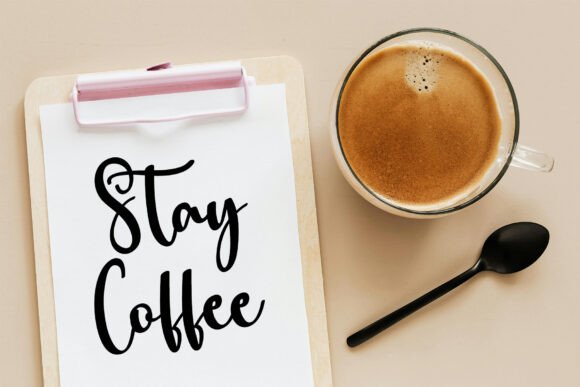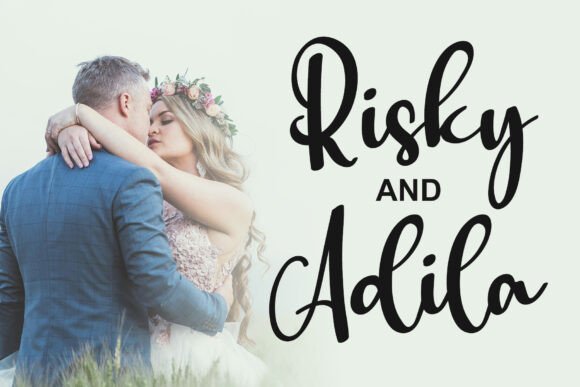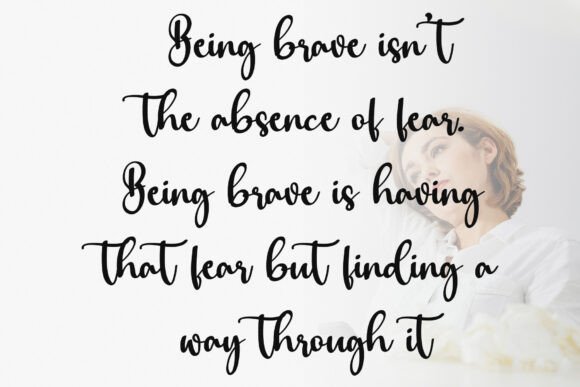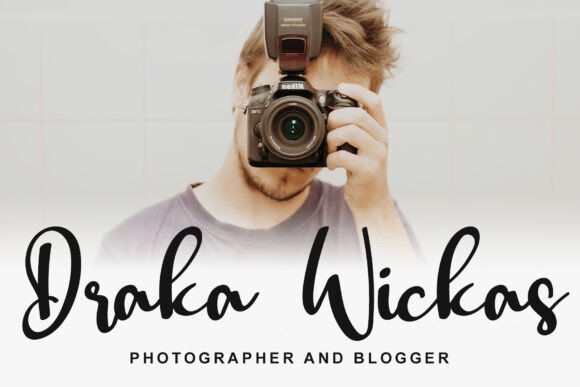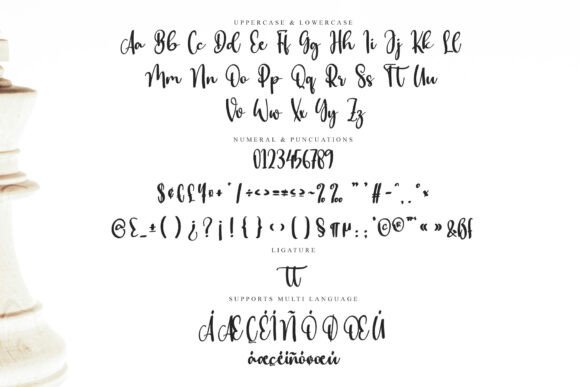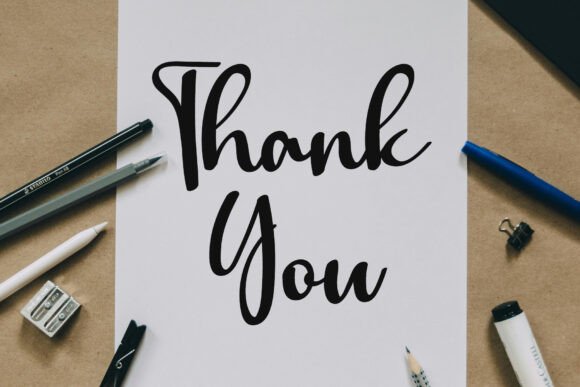
Introduction to Simple Heart Font
As designers, we’ve all been there – staring at a blank canvas, trying to bring our creative vision to life. The perfect font can be the missing piece that takes our design from bland to grand. And that’s exactly where the Simple Heart Font comes in – a delicate, elegant handwritten typeface that’s perfect for a wide range of design needs.
Whether you’re working on a high-end branding project or a social media post, the Simple Heart Font is a valuable addition to your design resource arsenal. Its PUA encoding means that you can easily access all the glyphs and alternates, giving you the flexibility to create something truly unique and eye-catching.
Key Features of Simple Heart Font
- Unique, cursive design with a simple heart shape, perfect for creative projects
Honest Review: Simple Heart Font
As a designer, I’m always on the lookout for high-quality design resources that can elevate my creative projects. Recently, I stumbled upon the Simple Heart Font, and I’m excited to share my honest review with you.
What works well: ✨ The Simple Heart Font is incredibly versatile, making it perfect for a wide range of design projects. Its elegant and modern design is sure to add a touch of sophistication to any layout. The font also features a transparent background, which makes it easy to overlay on top of other design elements.
- High-quality design: The Simple Heart Font is well-crafted and exhibits excellent clarity, making it perfect for both print and digital projects.
Limitations: ⚠️ One potential limitation of the Simple Heart Font is that it may not be suitable for all design projects. Its modern design may not be the best fit for more traditional or formal projects.
The Simple Heart Font is ideal for creative projects, such as Valentine’s Day cards, wedding invitations, and social media graphics. It’s also great for adding a personal touch to blog posts, newsletters, and marketing materials.
To get the most out of the Simple Heart Font, experiment with different font sizes, colors, and styles to create visually appealing designs. Use it in combination with other design elements, such as graphics and images, to add depth and interest to your projects.